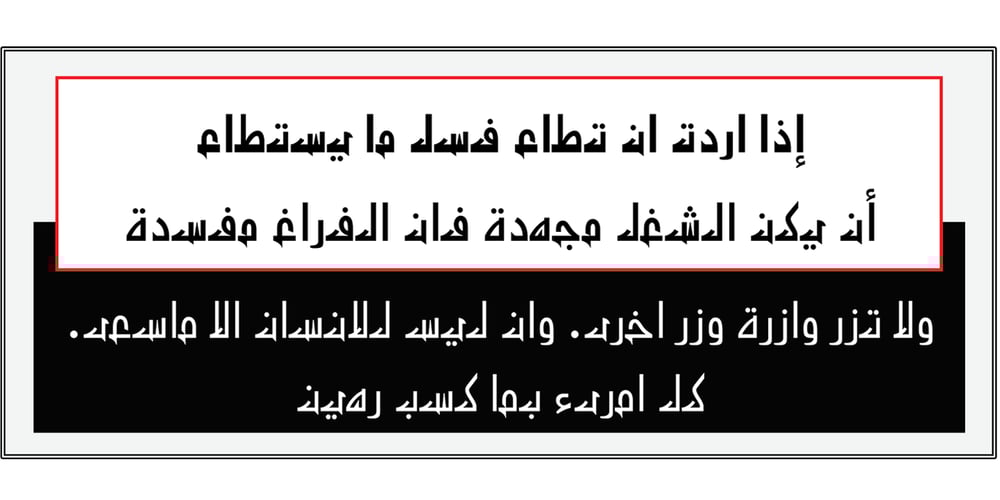
Arabetics Detroit
Arabetics Detroit font
Arabetics Detroit Font Family was designed by Saad D. Abulhab and published by Arabetics. Arabetics Detroit contains 6 styles and family package options. Arabetics Detroit is a monoshape font family with a fixed single shape per each Arabic Unicode character. This font family supports all Arabetic scripts covered by Unicode Standards 6.1, and the latest Arabic Supplement and Extended-A Unicode blocks, including support for Quranic texts. It includes three weights: regular, bold, and light, each of which has normal and left-slanted (Italic) versions. The design of this font family follows the Arabetics Mutamathil style design principles utilizing varying x-heights and no glyph substitutions. The Mutamathil type style was introduced by the designer more than 15 years ago. The Arabetics Detroit font family includes all required Lam-Alif ligatures in addition to all soft vowel diacritics (harakat), which are selectively positioned with most of them appearing on similar high and low levels—top left corner—to clearly distinguish them from the letters. The Tatweel or Kashida lengthening character is a zero-width glyph.